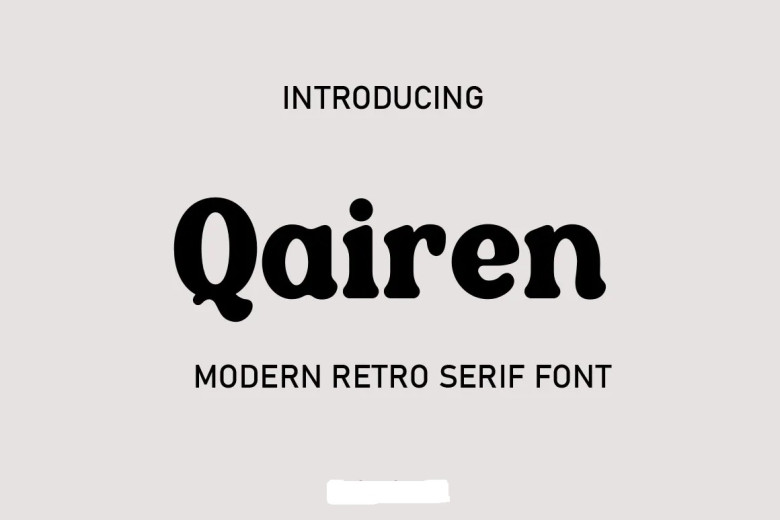
Qairen Font
Qairen features a retro serif style and modern appearance, making it suitable for luxurious logos and book titles as well as clothing, magazine covers, fashion trends and lettering projects.
Qairen Serif Font